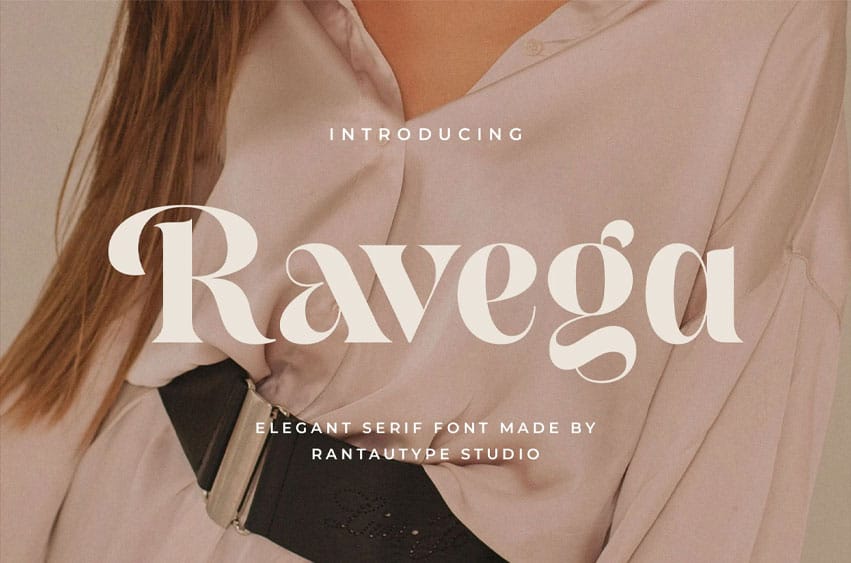
Ravega Font is an elegant, modern serif font that blends classic sophistication with contemporary minimalism. Ravega is a perfect choice for any creative endeavor, chic lifestyle design such as logotype, advertisements, watermark on photography, stationery, branding project, display, magazine, invitation, corporate brand, product design, label, business project, and many other projects with a modern touch.